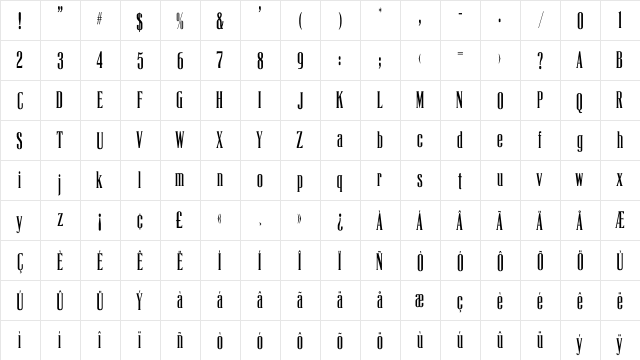
LaTribuneCP Medium
Design Context for LaTribuneCP Typeface
LaTribuneCP takes a measured approach to typography — its balanced proportions and neutral character make it a reliable workhorse for both digital and print work.